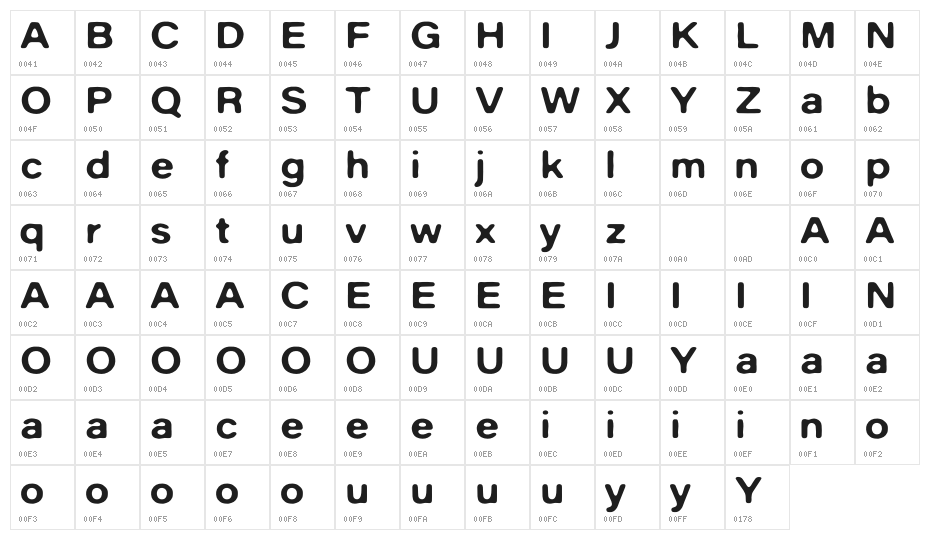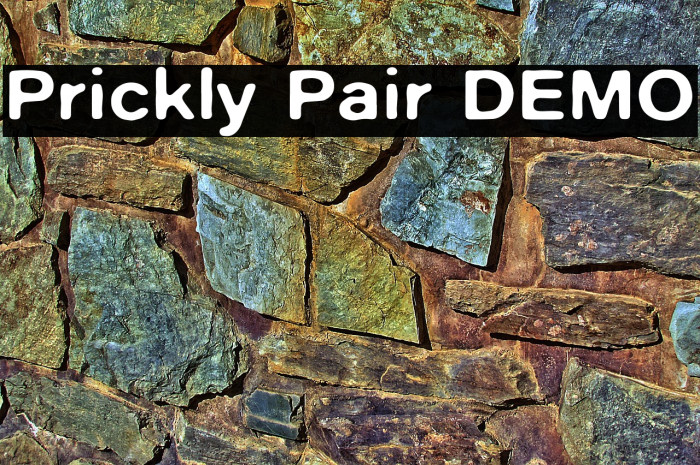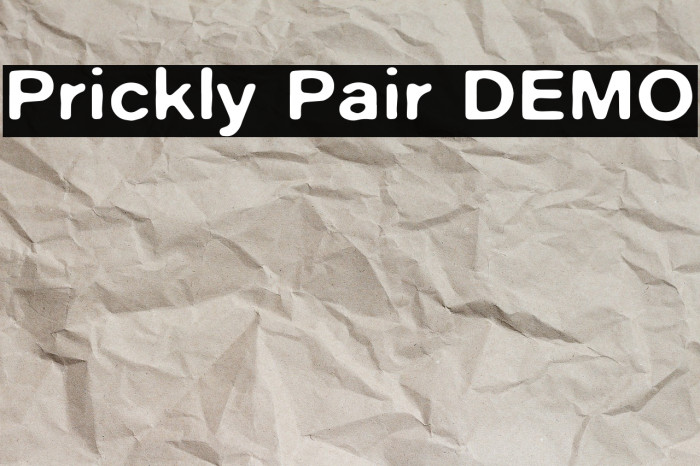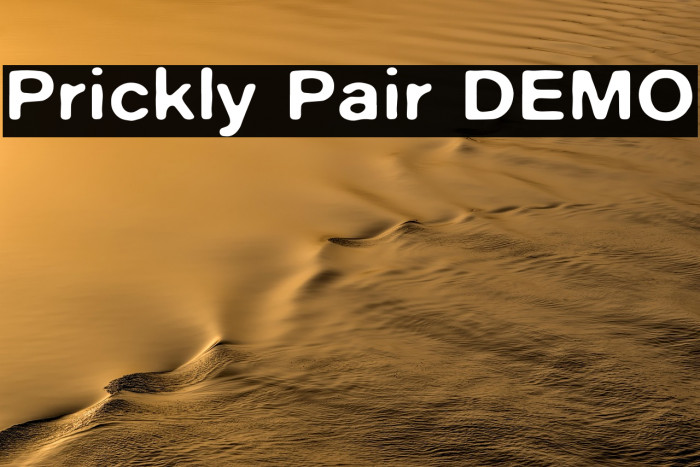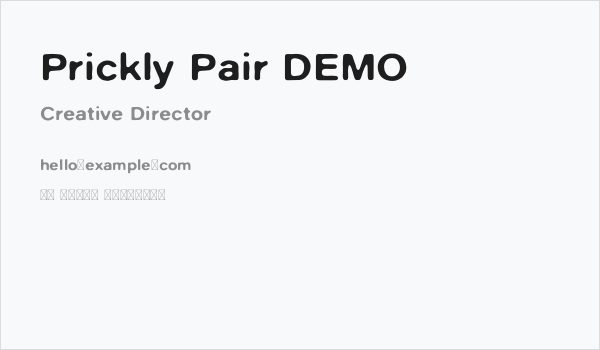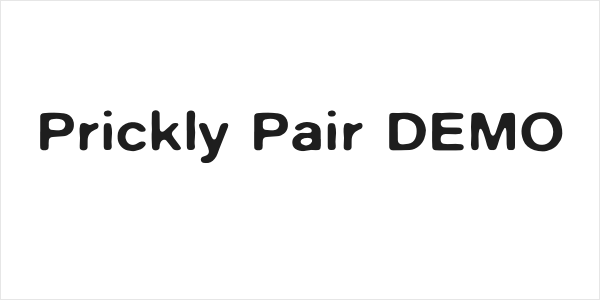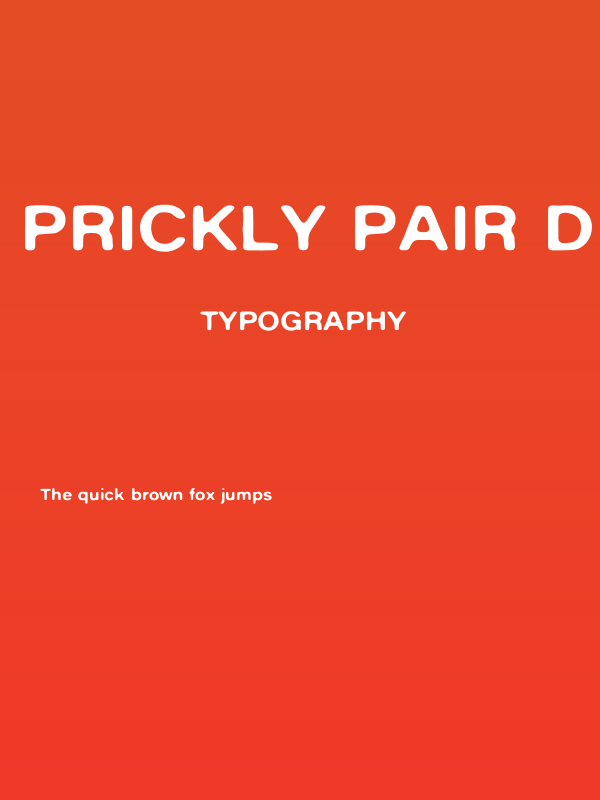
Prickly Pair DEMO Font
Prickly Pair DEMO Description
This font features a playful and rounded style, with smooth curves and a slightly bold appearance. The letters are evenly spaced, providing a balanced and harmonious look. The uppercase and lowercase characters maintain a consistent design, enhancing readability. The font's rounded edges give it a friendly and approachable feel, making it suitable for various creative projects. Its simplicity and clarity make it versatile for both digital and print media.
| Proposed Projects | Ideal for children's books, playful branding, casual invitations, and creative posters. |